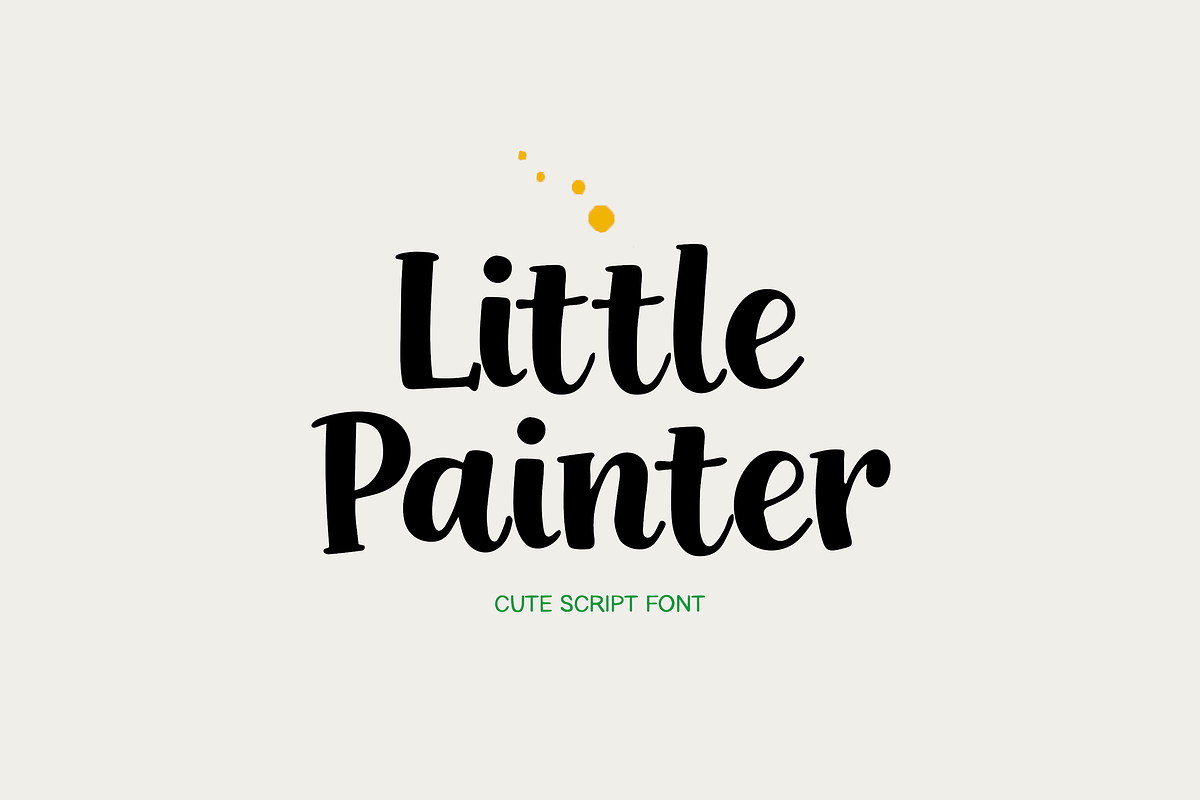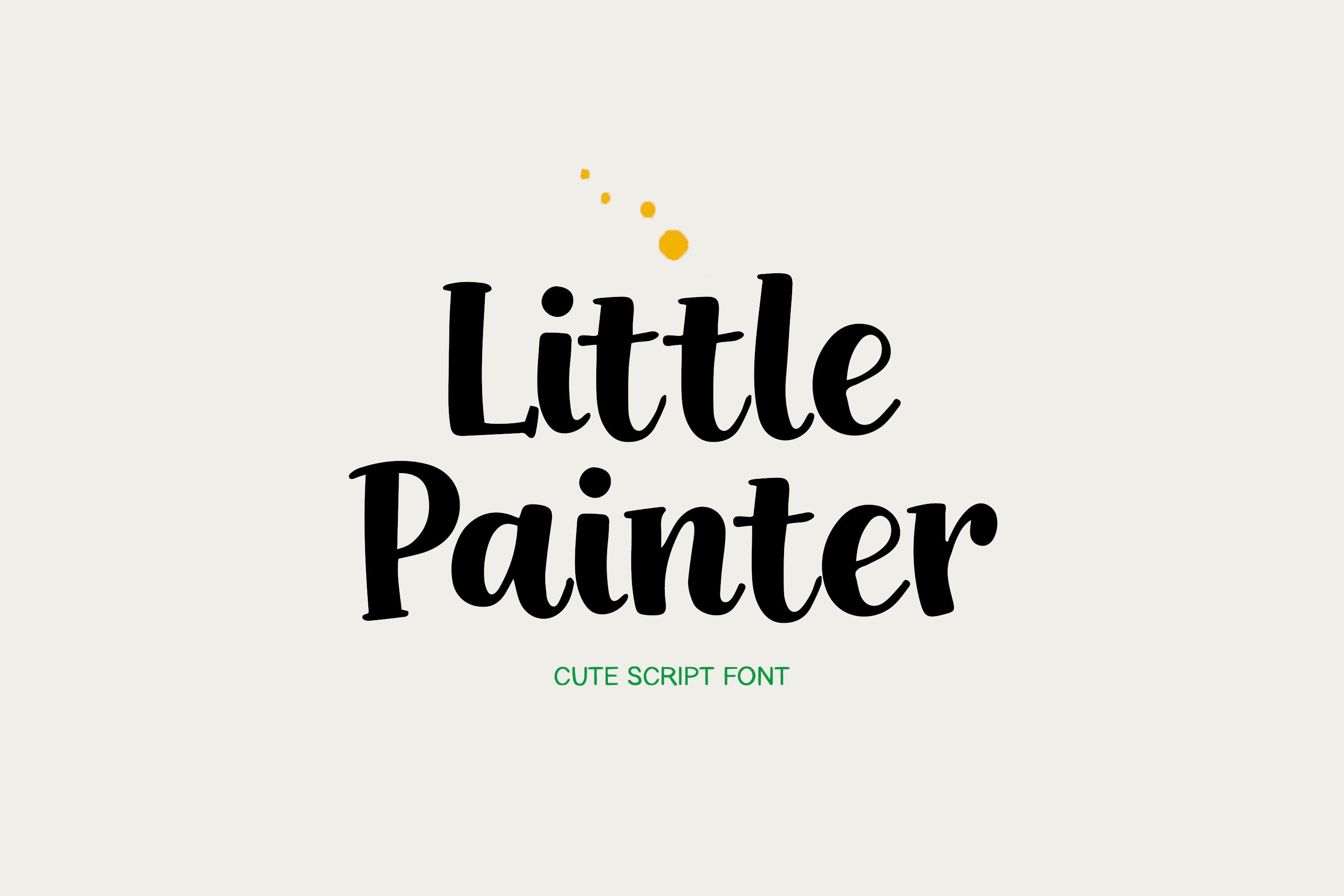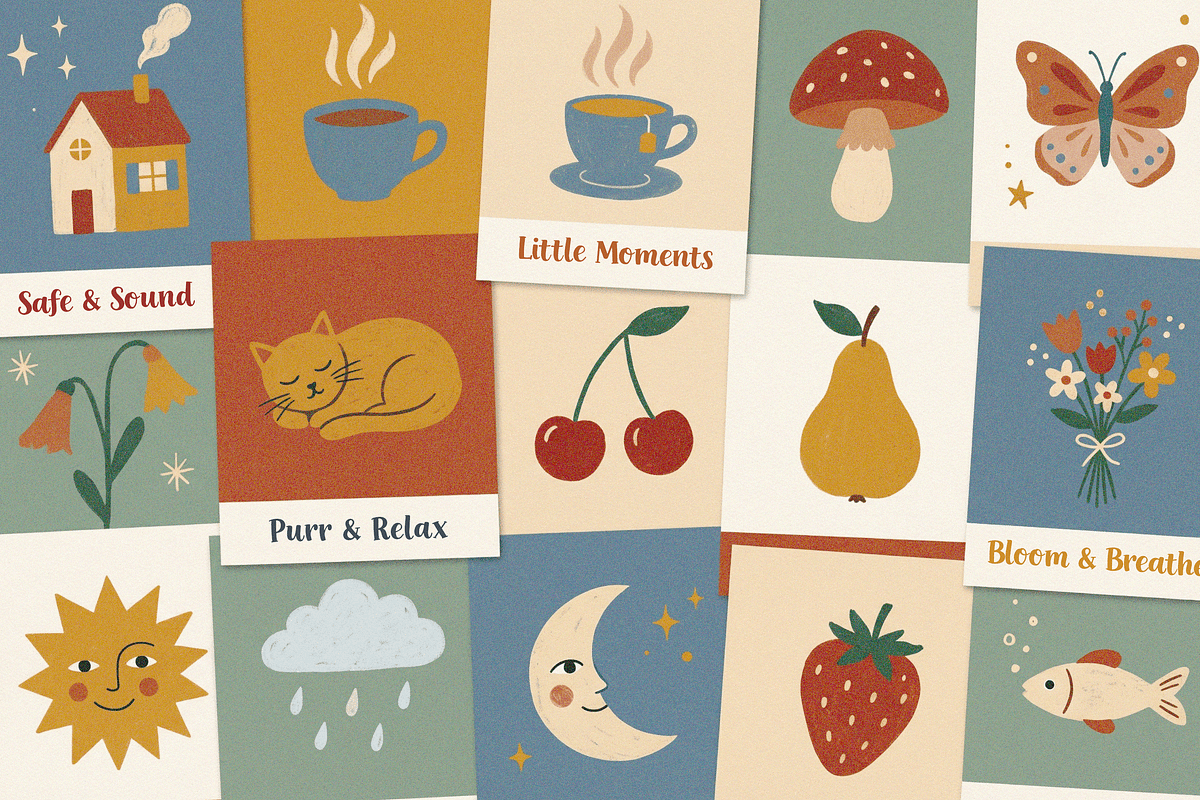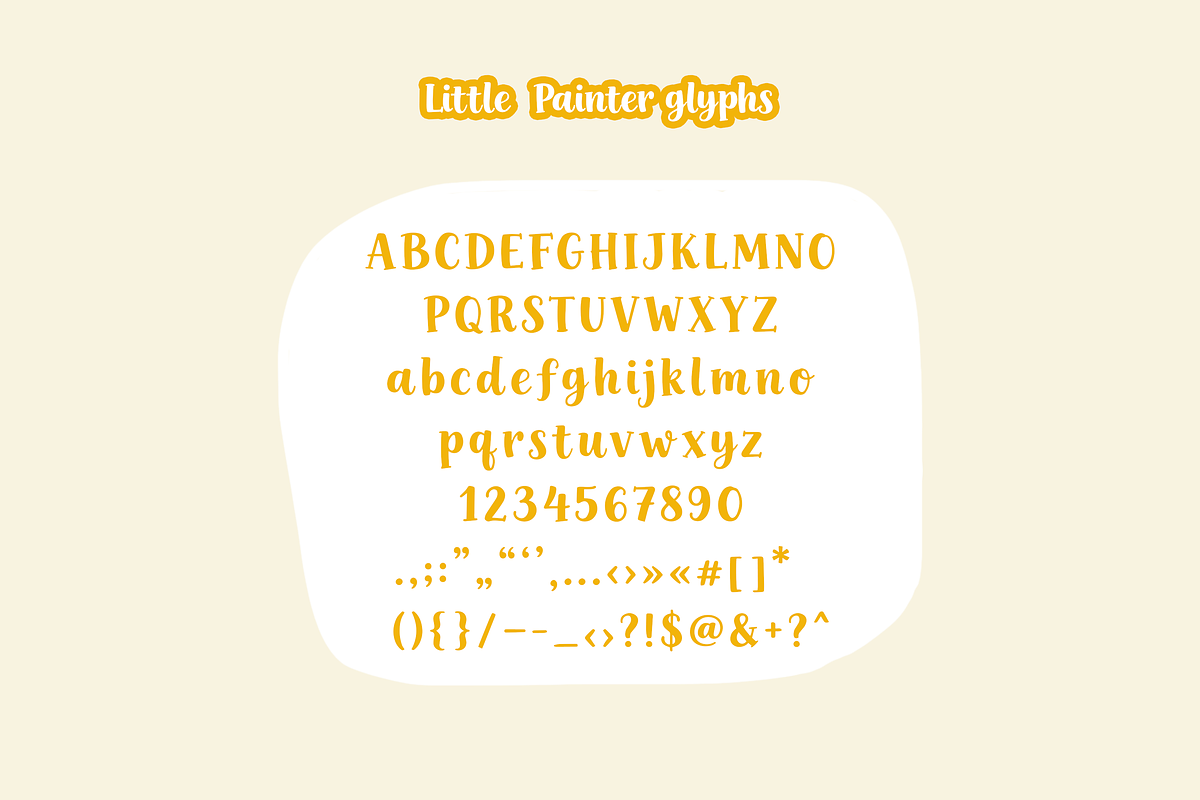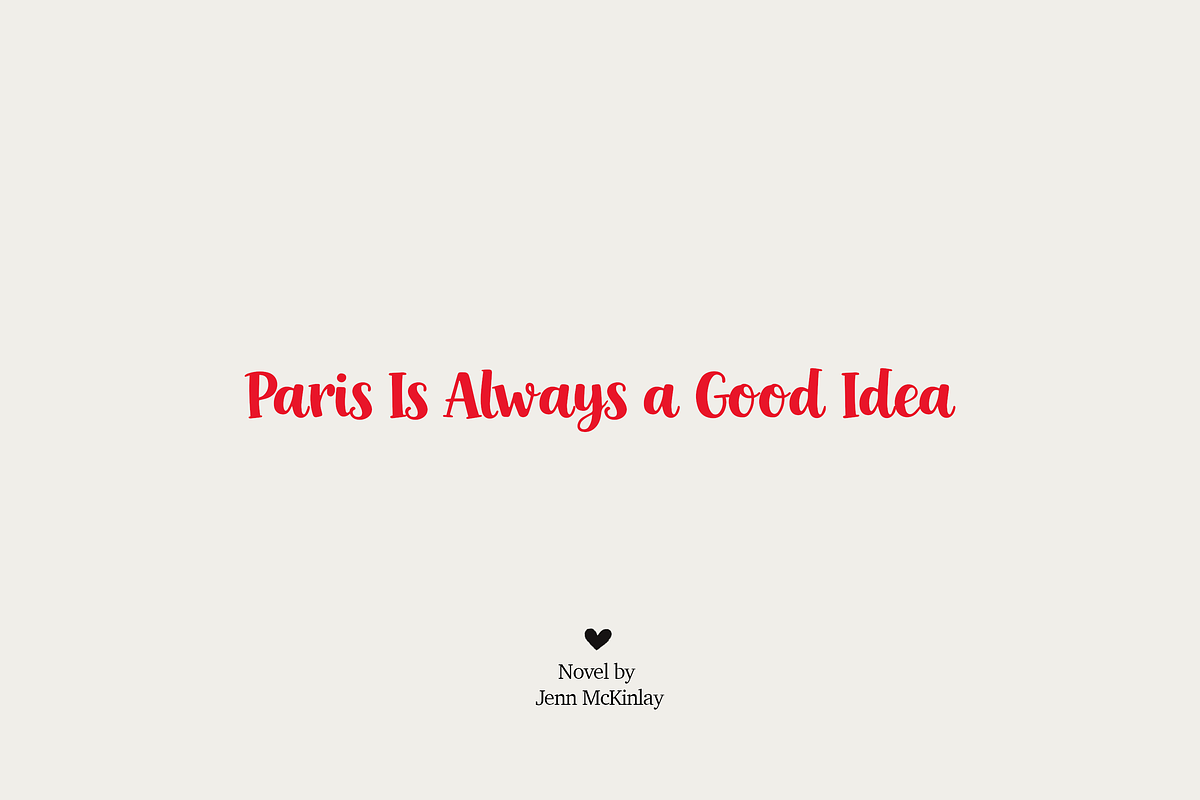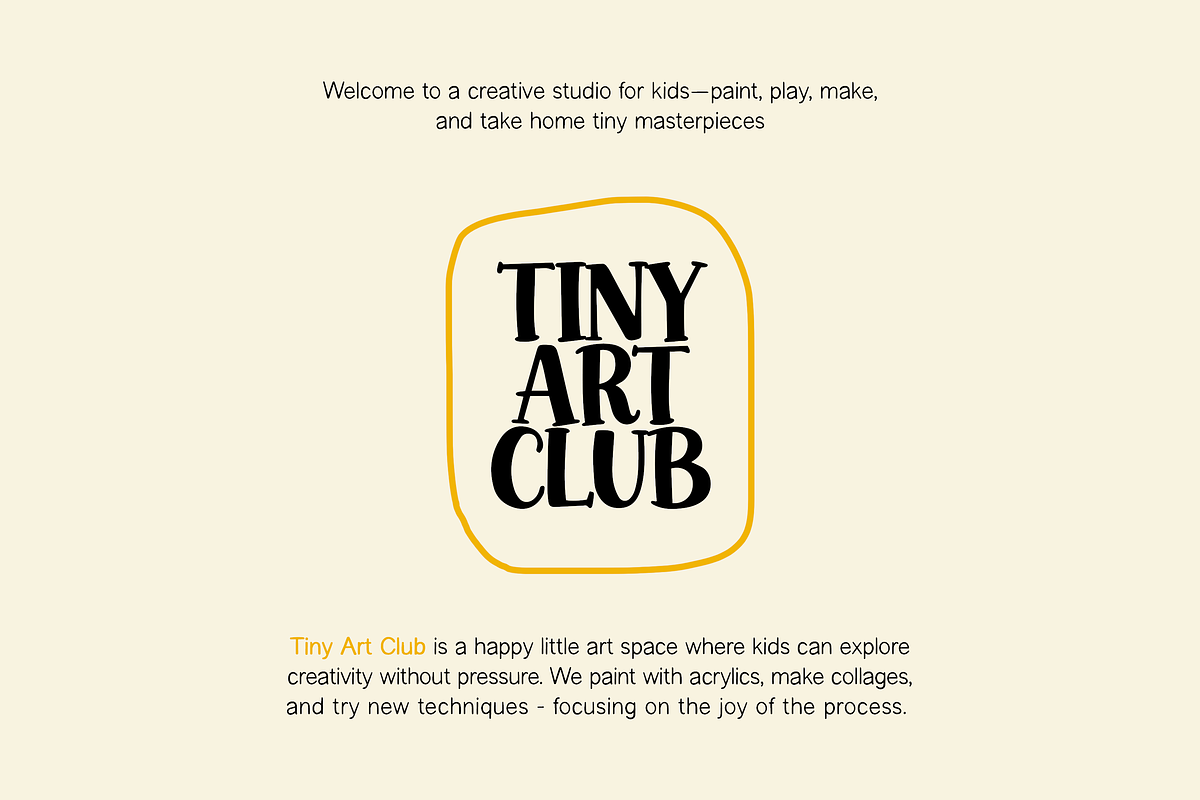
Little Painter | Cute Script Font
Little Painter is a cute, playful script font with soft, bouncy letters—made for kid-friendly designs and cozy creative projects. Perfect for stickers, classroom materials, birthday invitations, labels, and fun branding.
Great for:
- Kids crafts, classroom worksheets, flashcards;
- Birthday & Wedding invites, party printables, baby shower designs;
- Stickers, decals, Cricut & Silhouette projects;
- Social media posts, cute quotes, packaging & labels.